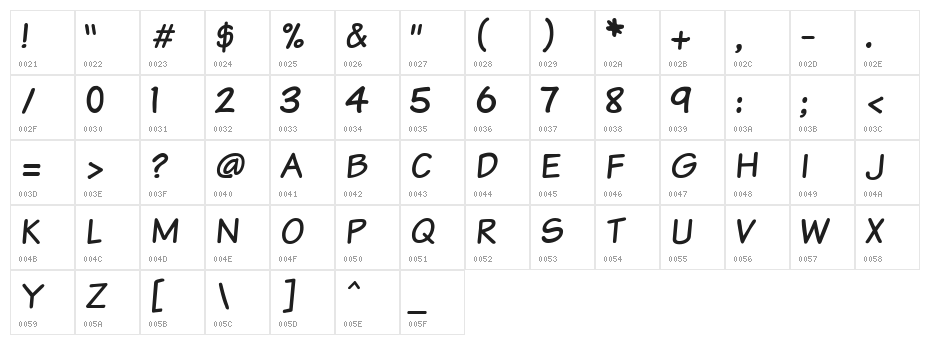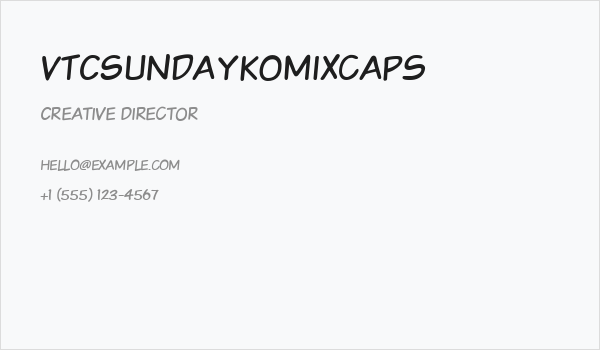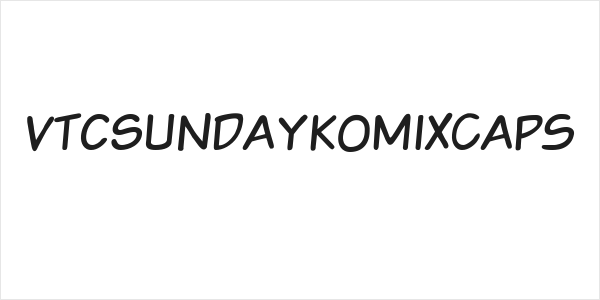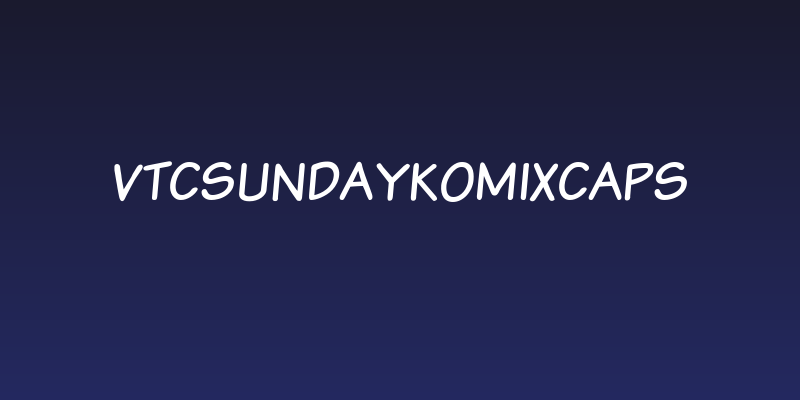
VTCSundaykomixcaps Font
VTCSundaykomixcaps Description
This playful and energetic font features a handwritten style with a casual, comic-like appearance. The letters are slightly slanted, giving a dynamic feel, and the strokes are bold and rounded, adding to its friendly and approachable nature. The characters are evenly spaced, maintaining readability while conveying a sense of fun and creativity. The font includes a full set of uppercase and lowercase letters, numerals, and a variety of special characters, making it versatile for different design needs.
| Proposed Projects | Ideal for comic books, children's books, playful branding, and informal invitations. |